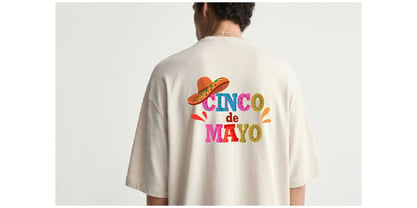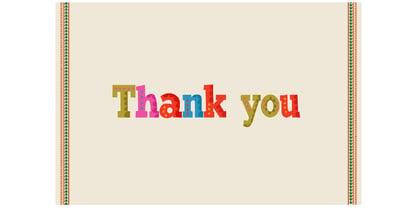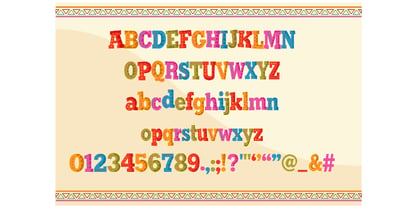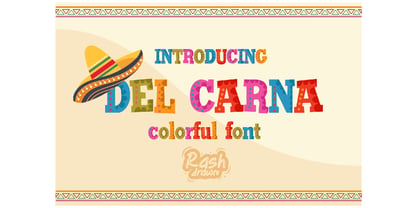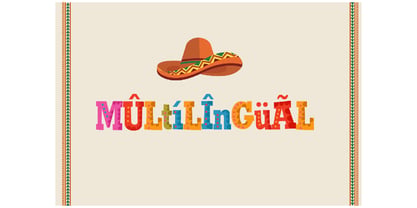
Del Carna
by Rashdrawn
The Del Carna Font Family was designed by Dadan Wildan and published by Rashdrawn. Del Carna contains 2 styles and family package options. More about this family
Del Carna – Colorful Fiesta Display Font
Bring the spirit of celebration into your designs with Del Carna, a bold and playful display font inspired by colorful carnival culture, Mexican fiestas, handmade paper banners, and retro festival typography.
Each letter is crafted with unique decorative patterns and vibrant character, making your text feel lively, joyful, and full of personality. Perfect for eye-catching headlines, party branding, children’s projects, packaging, posters, social media graphics, and festive merchandise.
Whether you're creating a fun logo, a Cinco de Mayo poster, or a cheerful kids design, Del Carna adds instant energy and charm.
Features
• Uppercase & Lowercase
• Numbers & Punctuation
• Multilingual Support
• Decorative Handmade Style
• Colorful Festival Inspired Design
• Easy to Use
Perfect For
• Kids Branding
• Party Posters
• Fiesta & Carnival Themes
• Cinco de Mayo Designs
• T-shirt Designs
• Packaging
• YouTube Thumbnails
• Social Media Graphics
• Stickers & Crafts
• Fun Logo Designs
Designers: Dadan Wildan
Foundry: Rashdrawn